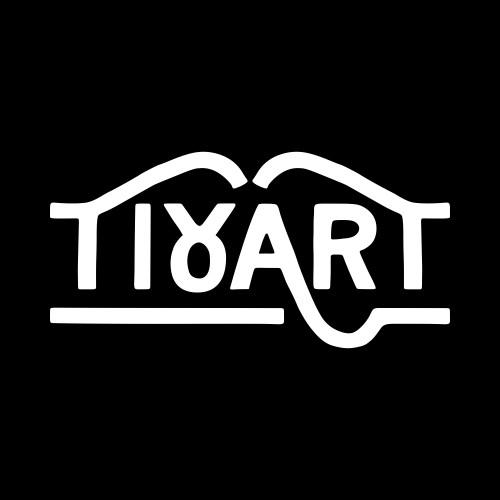
Mountry is the epitome of hipster chic! This display font comes with ornamental extras, swashes, and stylistic alternates so you can make unique looking designs that are comprehensive and on-trend.